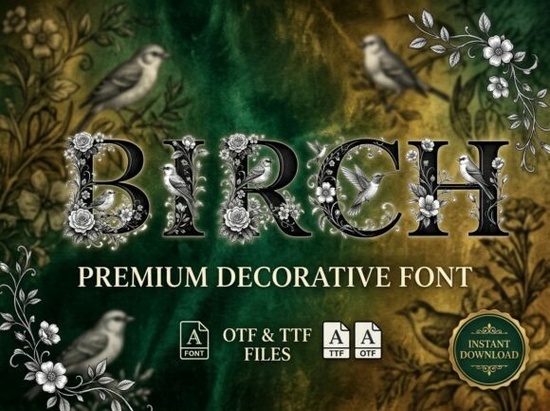
The Birch Font is a unique and elegant typeface that brings the quiet beauty of nature into your design projects. With its delicate balance of serenity and sophistication, this font is ideal for those looking to add a touch of organic charm to their work. Whether you're designing packaging, creating social media graphics, or working on a poetry collection, Birch offers a timeless aesthetic that feels both natural and refined.
Designed with a “vintage-naturalist” vibe, the Birch Font features high-contrast serif letterforms that are beautifully intertwined with hand-etched illustrations of sparrows, hummingbirds, and blooming roses. This combination creates a visual narrative that evokes the peaceful atmosphere of a forest at dawn. The font’s academic weight gives it a sense of gravitas, making it perfect for luxury branding, artisanal products, and creative projects that value authenticity.
If you're searching for a decorative font that stands out while maintaining readability, Birch is an excellent choice. It works well in both digital and print formats, offering versatility for different design needs. Its intricate details make it particularly suited for projects that aim to convey a sense of elegance and craftsmanship.
What Makes Birch Font Unique?
The Birch Font distinguishes itself through its thoughtful design elements. Unlike many other decorative fonts that prioritize style over usability, Birch maintains clarity while still delivering a strong visual identity. The inclusion of subtle nature-inspired illustrations adds a layer of storytelling to the typography, making it more than just a font it's a design tool that can enhance the emotional impact of your work.
For designers who want to create a cohesive theme around nature, the Birch Font provides a strong foundation. It pairs well with other fonts like Blazter, Aruna, and Shark, allowing for creative combinations that reflect different aspects of the natural world.
Best Uses for the Birch Font
This font is especially effective for projects that require a soft, artistic touch. For example, independent poets may find it perfect for book titles, while small businesses involved in handmade goods or eco-friendly products could use it for branding materials. It also makes a great choice for social media headers, where a visually appealing design can help capture attention and build a brand identity.
When used in print, the Birch Font adds a sense of luxury and exclusivity. It’s often seen on artisanal tea packaging, wedding invitations, and custom stationery. Its ability to blend seamlessly with natural imagery makes it a favorite among crafters and print-on-demand sellers looking to offer unique, high-quality designs.
How to Use the Birch Font Effectively
To get the most out of the Birch Font, consider pairing it with simpler typefaces for contrast. This helps maintain readability while still allowing the decorative elements of the font to shine. Using it as a headline or title can draw attention to key messages without overwhelming the reader.
It’s also helpful to experiment with different sizes and spacing. The font’s detailed strokes look best when given enough room to breathe, so avoid overcrowding text blocks. If you’re using it digitally, make sure to test it across various devices and platforms to ensure consistency in appearance.
For those interested in exploring similar fonts, Paulette offers a comparable style with its own set of unique characteristics. Each of these fonts can be a valuable addition to your design toolkit, depending on the project’s needs.
Whether you're a designer, crafter, or small business owner, the Birch Font offers a way to bring a sense of nature and refinement into your work. Its thoughtful design and versatile applications make it a valuable resource for anyone looking to elevate their creative projects with a touch of organic elegance.
- Consider pairing with simpler fonts for contrast
- Test on different devices for consistent appearance
- Use as a headline or title to highlight key messages